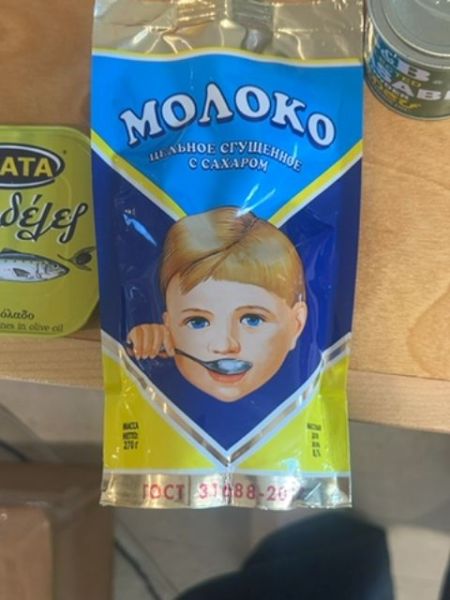
Молоко
Sweetened condensed milk, used for culinary purposes, such as baking and desserts.
Russia
The typography prominently uses a bold, rounded Cyrillic font for the product name, creating a sense of nostalgia. The font style is playful yet robust, effectively capturing attention and evoking a sense of tradition.
The packaging features a vibrant, retro-style design with blue and yellow colors that draw the eye. An illustration of a child enjoying a spoonful adds a playful and nostalgic touch, emphasizing warmth and nostalgia.
- Commonly used in Russia and Eastern Europe.
- Often used in making desserts and baked goods.
- Typically sold in cans or pouches.